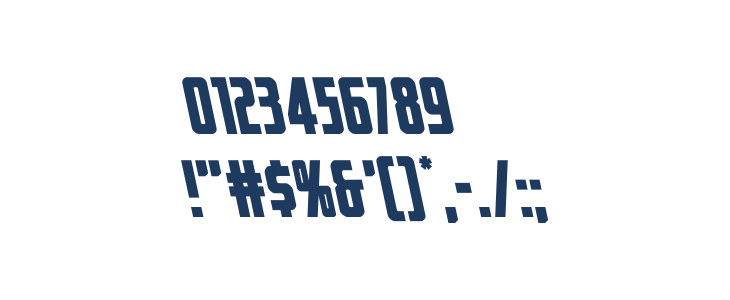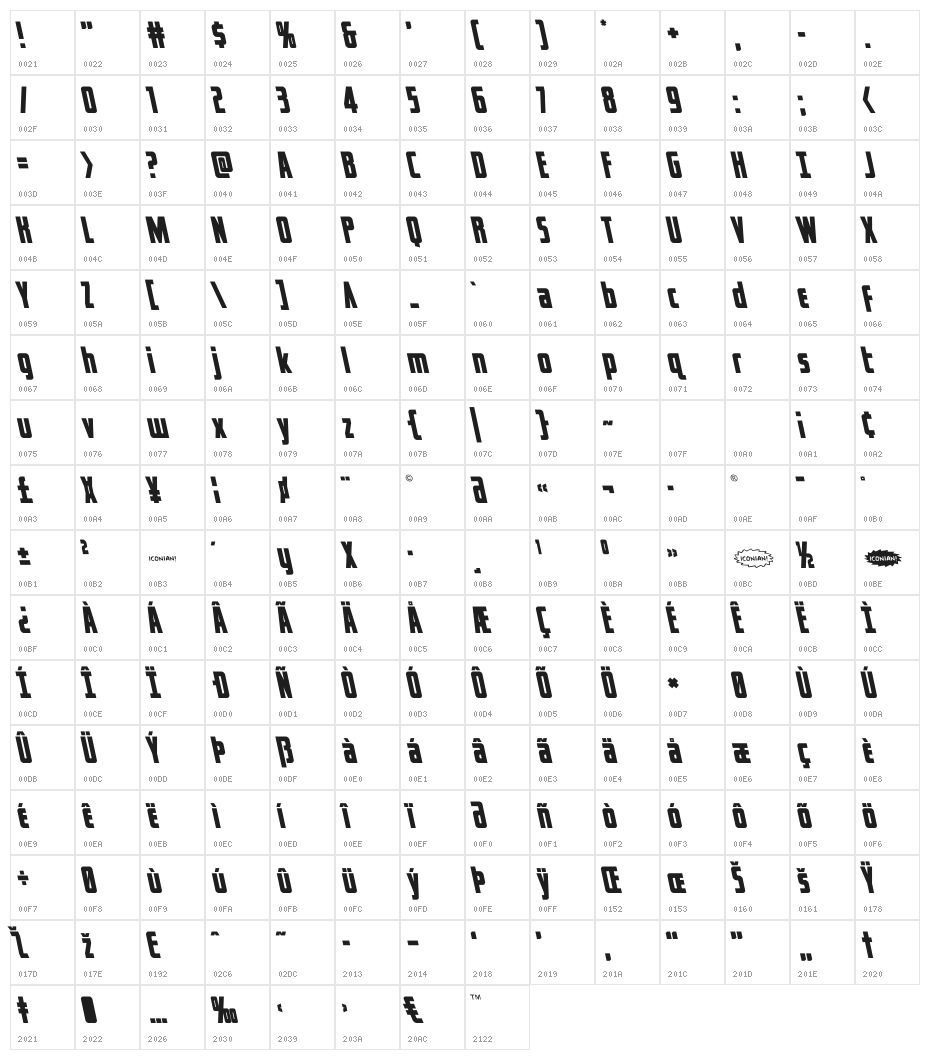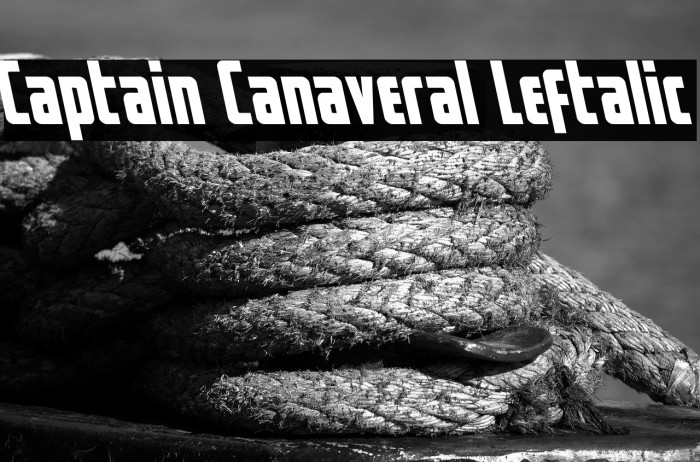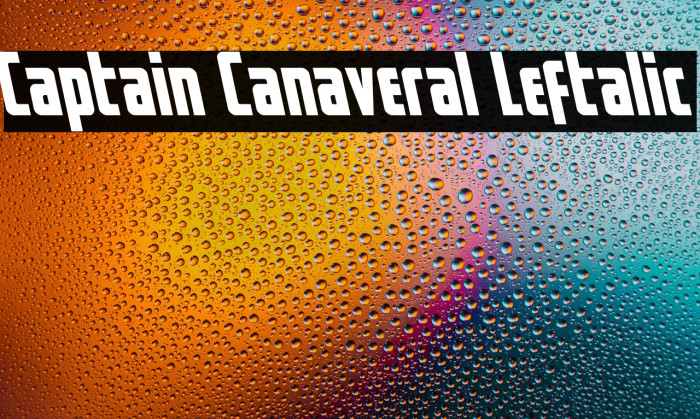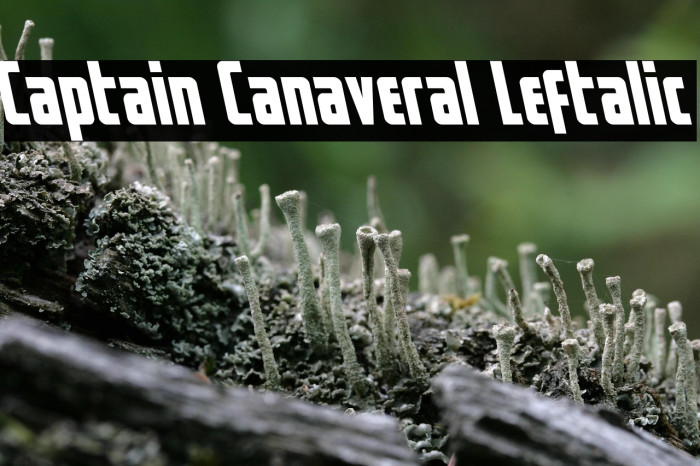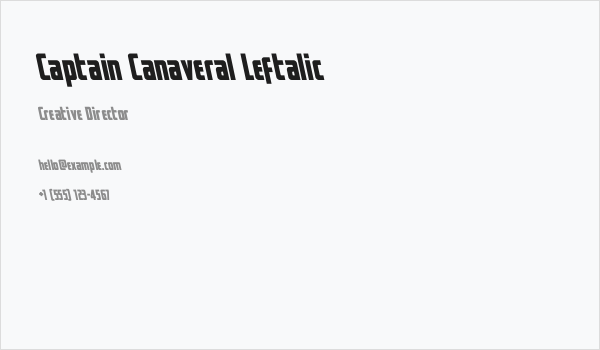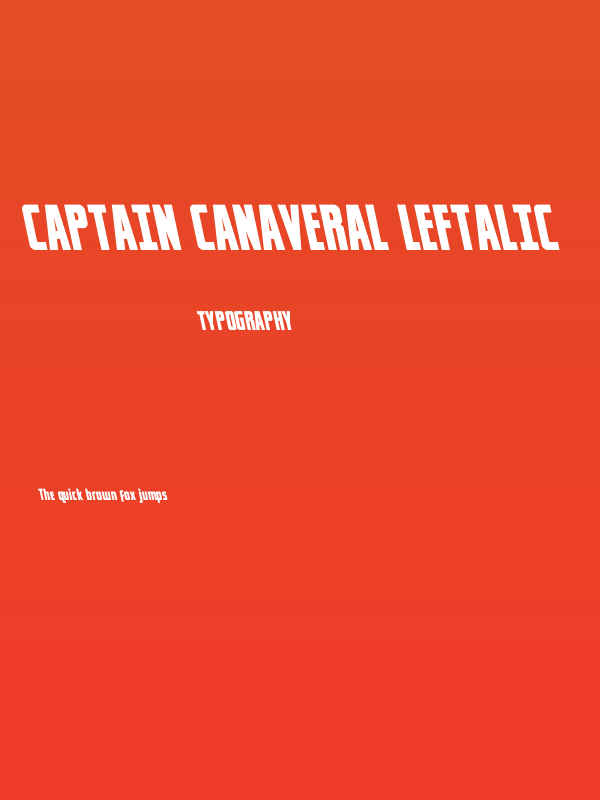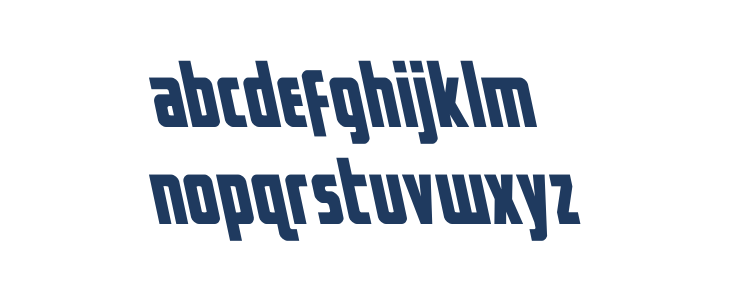
Captain Canaveral Leftalic Font
Captain Canaveral Leftalic Description
This font exhibits a bold, dynamic style with a distinct slant to the left, giving it a sense of motion and energy. The characters are wide and robust, with a strong presence that commands attention. The uppercase and lowercase letters maintain a consistent weight, contributing to a cohesive look. The numerals are equally bold, ensuring readability and impact. Special characters are designed to match the overall style, with sharp angles and a solid structure. This font is ideal for projects that require a strong, assertive visual impact.
| Proposed Projects | Ideal for sports branding, dynamic posters, bold headlines, and impactful logos. |